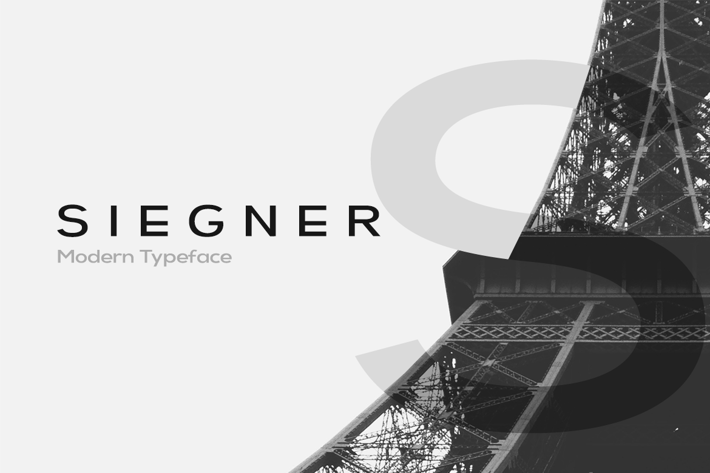
SIEGNER - Modern Typeface + WebFonts
SIEGNER is a modern Sans Serif typeface inspired from renowned Swiss typefaces with an added geometric flavor at it's perfection. SIEGNER will be best suited to create nicely looking headlines (adding some extra letter spacing will make it look amazing) as well as any type of web / print content that looks fresh and modern. This typeface can be a great choice for logotypes and branding design.